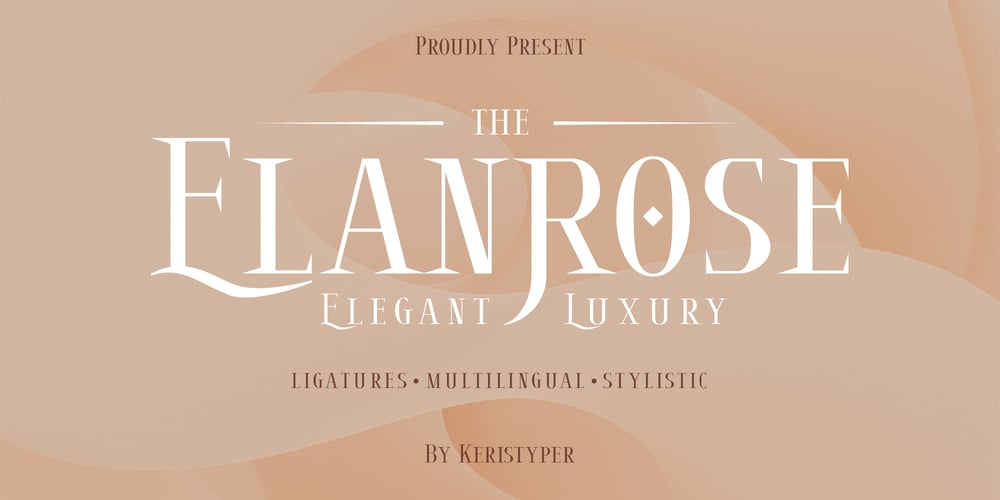
Elanrose Font Family was designed by Tezar Tantular and published by Keristyper Studio. Elanrose contains 1 styles and family package options. Introducing the modern-style serif font Elanrose with an elegant and luxurious feel in every shape. This font is good for logo design, Social media, Movie Titles, Books Titles, short text even long text letters, and good for your secondary text font with sans or serif.Featured: Standard Uppercase & Lowercase Numeral & Punctuation Multilingual : ä ö ü Ä Ö Ü ß ¿ ¡ Alternate & Ligature PUA encoded We recommend programs that support the OpenType feature and the Glyphs panel such as Adobe applications or Corel Draw. so you can use all the variations of the glyphs.Hope you enjoy our fonts!